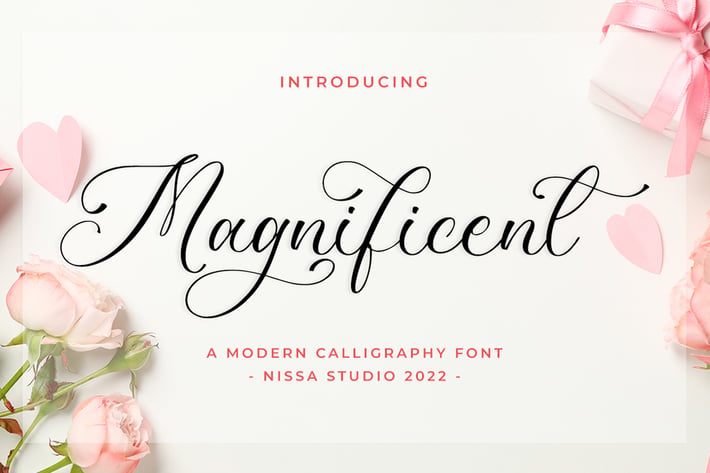
Magnificent - Lovely Script Font
Magnificent is a beautiful and delicate handwritten font with a unique feel and a stunning impact. It will add a luxury spark to any design project that you wish to create!
Modern Handwritten Font
Beautiful Swash (Ending tail)
Beautiful Titling (Beginning tail)
Special Ligatures